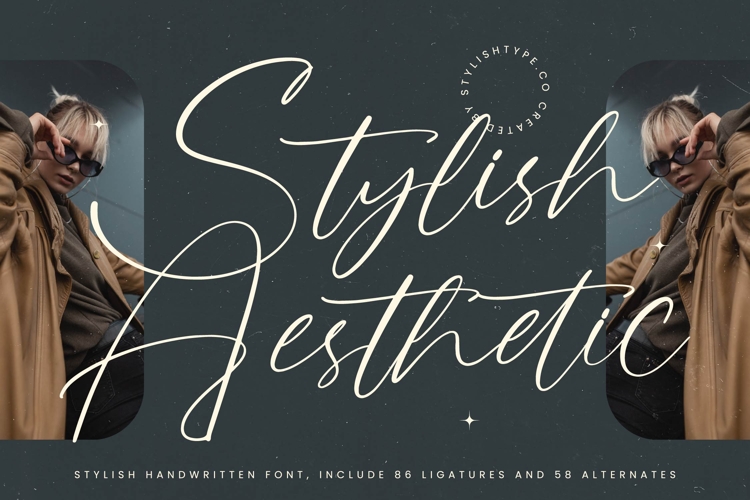
Stylish Aesthetic - Stylish Handwritten Font
Stylish Aesthetic - Stylish Handwritten Font allows designers to craft truly unique and authentic compositions. These integrated OpenType features enable seamless, fluid connections between characters, moving beyond standard font usage to mimic genuine, expressive handwriting. This wealth of customization guarantees a polished, authentic appearance every time, adapting beautifully to various layout and display needs.